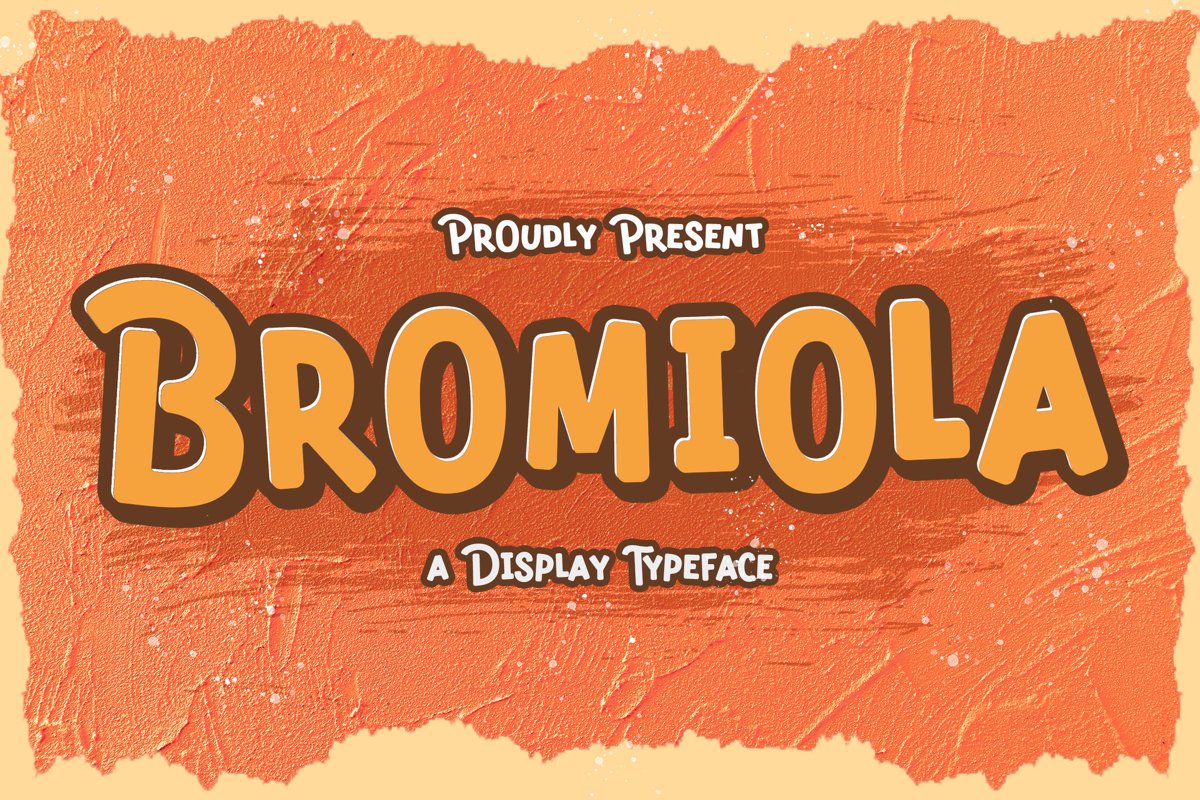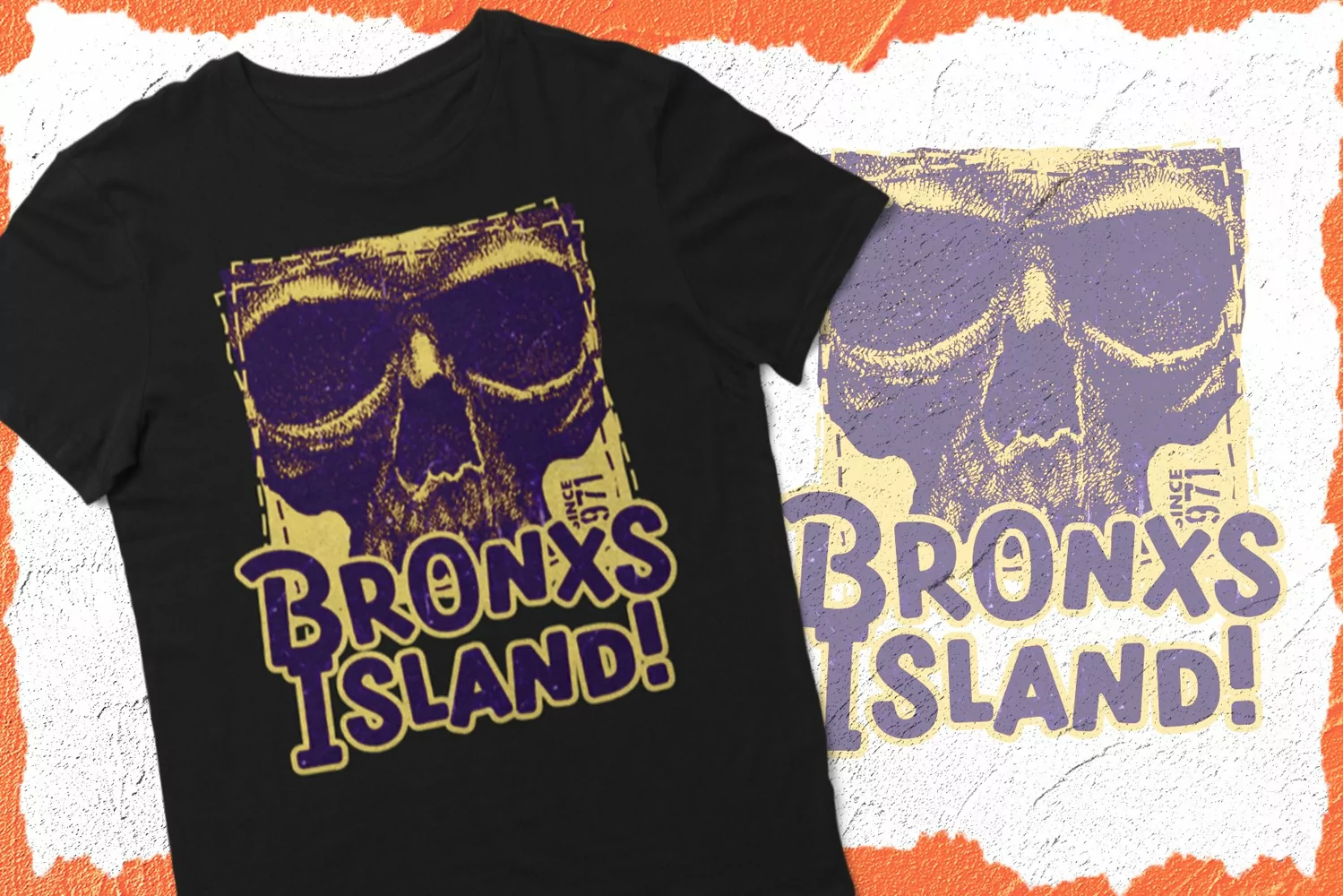
Bromiola is a display typeface. Perfect for display, quotes, print, t-shirt, merchandise, packaging, header, headline, branding, business card, logo, logotype, emblem, badges, and many more.